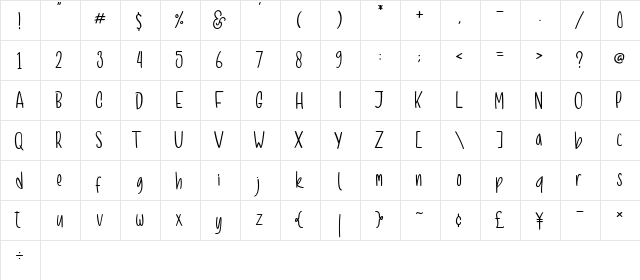
Brunch Brunch Regular
Design Context for Brunch Brunch Typeface
Brunch Brunch is a composed and adaptable typeface that performs quietly and consistently across a wide range of design contexts.